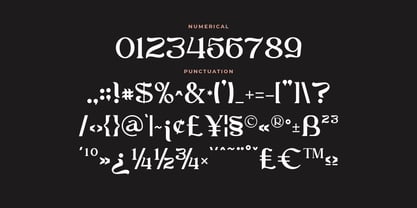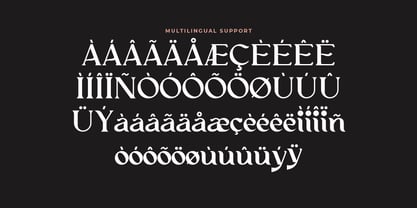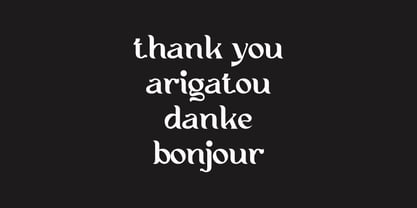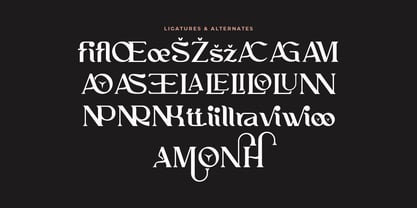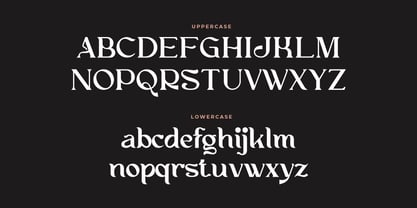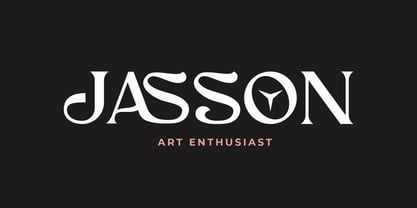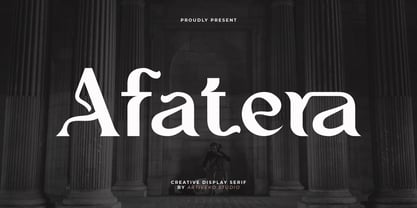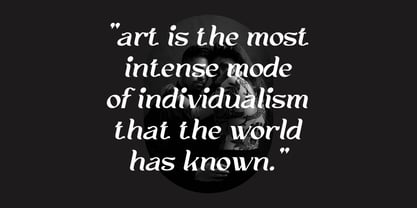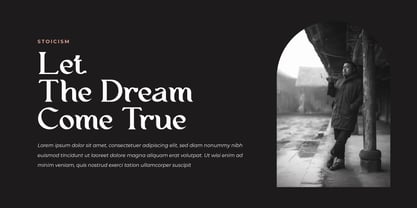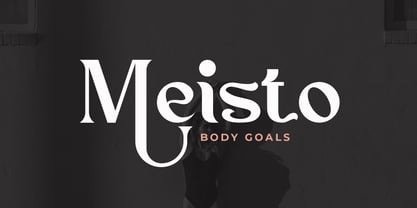
Afatera
por Artiveko
La familia tipográfica Afatera fue diseñada por Iwan Alwan y publicada por Artiveko. Afatera contiene 2 estilos y opciones de paquete familiar. Más información sobre esta familia
Alfatera is a distinctive display serif font designed to blend artistic expression with refined elegance. Featuring unique serif details, stylish contrast, and decorative character shapes, Alfatera brings a bold and creative personality to any design that needs to stand out with sophistication. Perfect for posters, headlines, branding, book covers, fashion campaigns, packaging, and editorial layouts, Alfatera transforms typography into a visual statement. Its expressive letterforms make it ideal for projects that demand both luxury and creativity in one cohesive style. Alfatera includes uppercase and lowercase letters, numerals, punctuation, multilingual support, and stylistic alternates to give designers flexibility and artistic freedom. Make your typography unforgettable with Alfatera — a creative display serif font crafted for expressive, elegant, and visually striking design.
Diseñadores: Iwan Alwan
Fundición: Artiveko